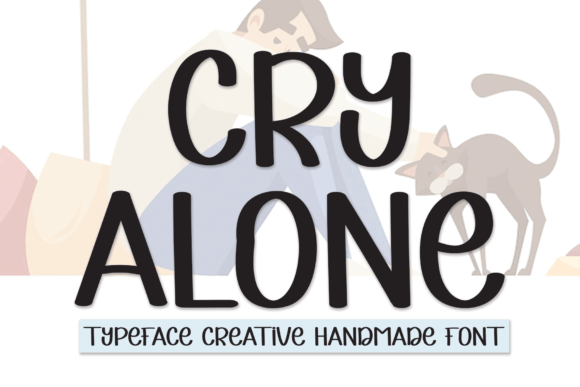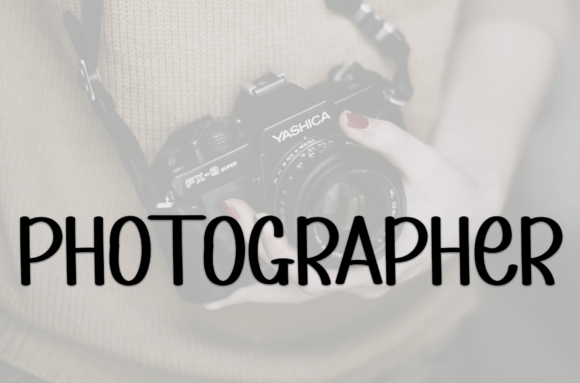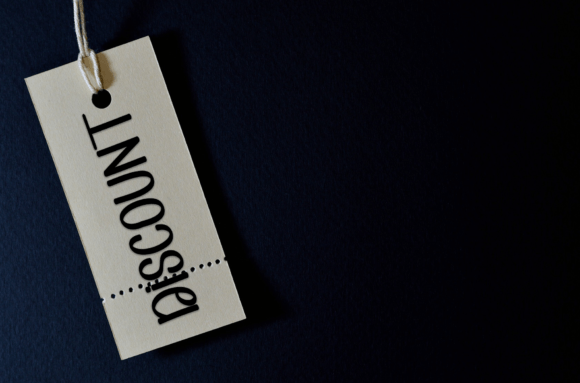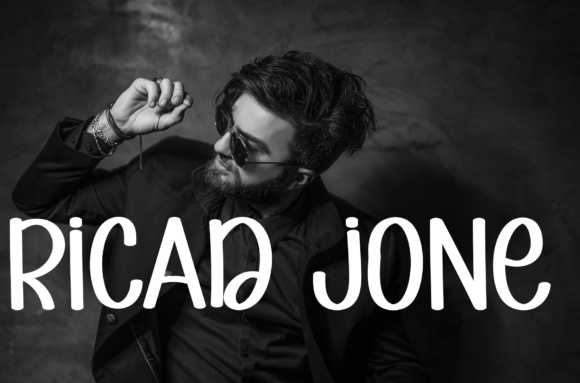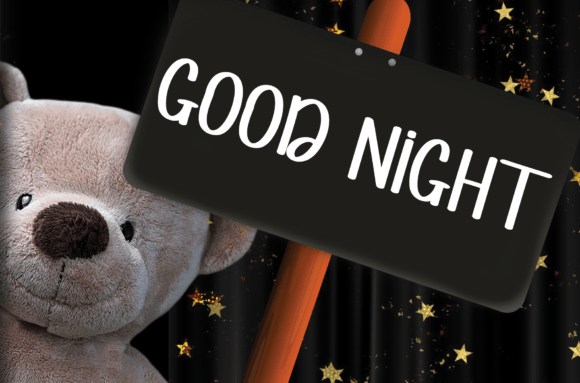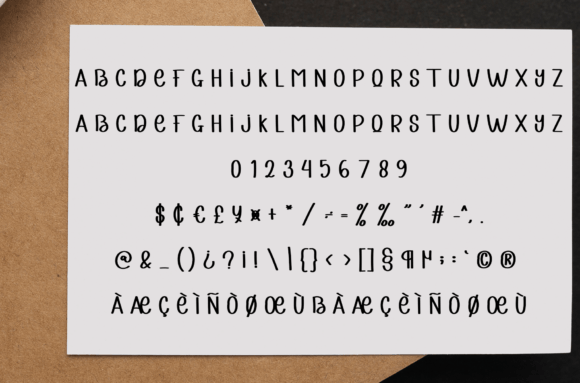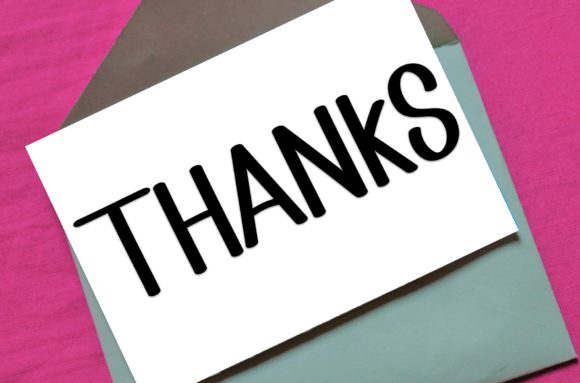
Cry Alone Font
About Cry Alone Font
Cry Alone is a sweet and friendly handwritten font that brings charm, softness, and a relaxed tone to your creative projects. It combines playful elegance with a human touch, making it the perfect choice for designs that aim to connect emotionally with their audience. Whether you’re writing a heartfelt note, designing a wedding invitation, or crafting a social media post, Cry Alone brings your words to life with warmth and style.
Its casual curves and smooth letterforms make this font feel natural and approachable. It mimics the look of genuine handwriting, adding personality and authenticity to every piece you create.
Ideal Use Cases
Cry Alone is versatile and adaptable. It fits beautifully in many design settings:
• Wedding Invitations & Love Notes – Perfect for romantic, elegant vibes
• Greeting & Holiday Cards – Add a sweet, human touch to your messages
• Social Media Graphics – Great for inspirational quotes or brand messages
• Logo Design & Branding – Especially for feminine, lifestyle, or craft brands
• Blog Titles & Headers – Make content feel friendly and inviting
• Gift Tags, Stickers, & Labels – Ideal for handmade or DIY packaging
• Scrapbooking & Craft Projects – Adds a lovely handwritten flair to keepsakes
• T-shirt & Mug Designs – Works well for casual and sentimental sayings
No matter your project type, Cry Alone helps create an emotional connection.
• Complete uppercase and lowercase characters
• Numbers, punctuation, and multilingual support
• Smooth baseline and clean stroke design
The balanced shapes and clear letter spacing ensure excellent readability, even in longer texts or at smaller sizes.
Why Choose Cry Alone Font?
Cry Alone captures the gentle side of handwritten fonts. It feels light, thoughtful, and comforting. This makes it a perfect choice when you want your message to feel personal, genuine, and soft. Designers, crafters, and small business owners alike will find that Cry Alone adds heart to their work.
Its unique combination of elegance and playfulness allows it to blend into modern and traditional design styles alike. Use it on its own or pair it with a minimalist sans serif font for beautiful contrast.
Let Cry Alone tell your story with grace, emotion, and personality.